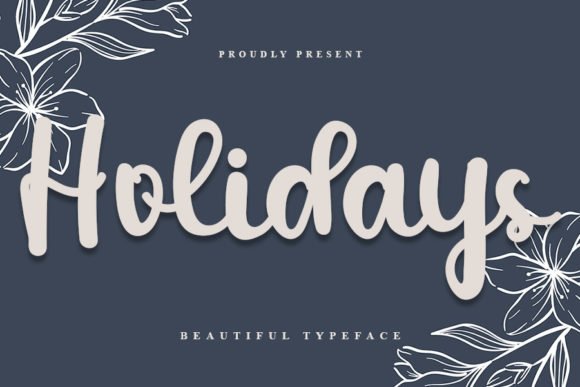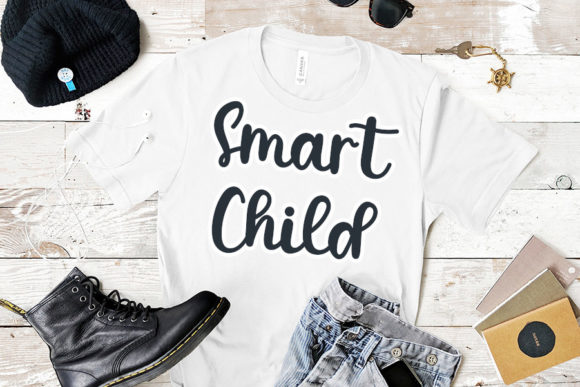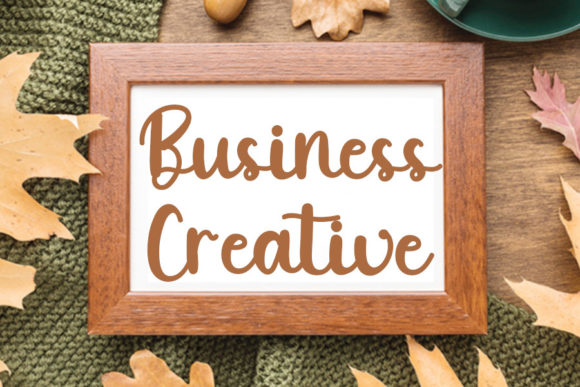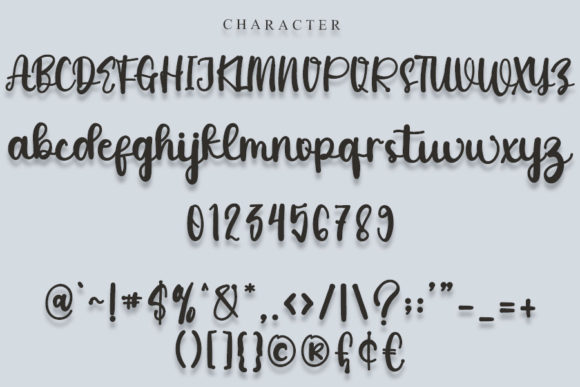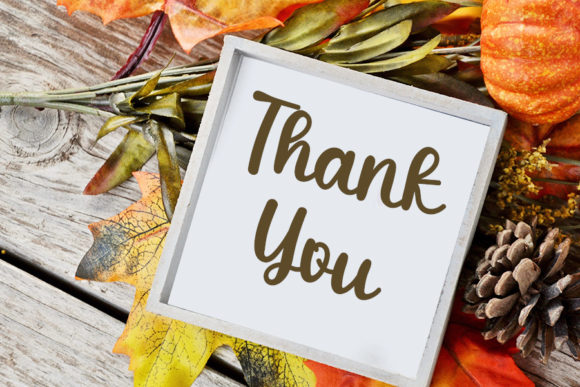
The Perfect Font for Your Next Design Project
Do you remember the moment when a simple font choice elevated your entire design project? For many designers, it’s a feeling that’s hard to forget. It’s the moment when you finally find that one font that makes your logo, branding, or quote pop!
That’s exactly what you get with the Holidays Font – a lovely and timeless handwritten font that’s sure to bring a smile to your face. With its unique and beautiful touch, this font is the perfect choice for creating eye-catching designs that leave a lasting impression. Whether you’re working on a new logo, branding, or quote, Holidays Font is a valuable addition to your design toolkit.
Holidays Font Key Features
- Unique Characteristics: Holidays Font features a unique, hand-drawn design with intricate details and ornaments, making it perfect for adding a touch of elegance and festivity to holiday-themed designs.
Holidays Font Review
Overall, I think the Holidays font is a fun and playful addition to any design project. ✨ Its cursive script and festive flair make it perfect for holiday-themed projects, like Christmas cards or New Year’s Eve invitations. ✨ The font is also highly customizable, with a range of options for color, size, and style.
- One of the things I love about Holidays is its versatility. ✨ It can be used for both personal and professional projects, and it’s sure to add a touch of whimsy to any design.
- The font is also highly legible, making it easy to read even at smaller sizes.
- Another benefit of Holidays is its wide range of weights and styles, which allows designers to create complex and visually interesting designs.
However, there are a few limitations to consider. ⚠️ For one, the font can feel a bit over-the-top or cheesy in some contexts. ⚠️ It’s best used in situations where you want to add a lot of festive flair, rather than in more serious or formal designs.
Overall, I think the Holidays font is a great choice for designers who want to add a bit of fun and personality to their projects. Just be sure to use it sparingly and in the right context to avoid overwhelming your audience.
The Holidays Font is ideal for creating festive and cheerful designs for holidays such as Christmas, Halloween, and Easter. You can use it to create invitations, greeting cards, and other holiday-themed materials.
Alternatives to “Holidays Font” for Designers
Great Vibes is a beautiful script font that is perfect for adding a touch of elegance and sophistication to your designs. It is ideal for use in invitations, posters, and other promotional materials where a whimsical and festive feel is desired.
Comparison to Holidays Font: While both fonts are script fonts, Great Vibes has a more refined and polished look, making it a better choice for high-end designs. Holidays Font, on the other hand, has a more playful and casual feel.
Q: What is the recommended font size for using the Holidays Font in digital designs?
We recommend using the Holidays Font at a minimum size of 24 points for digital designs, such as web pages, social media, and mobile apps. This will ensure the font is legible and visually appealing on various screen resolutions and devices.